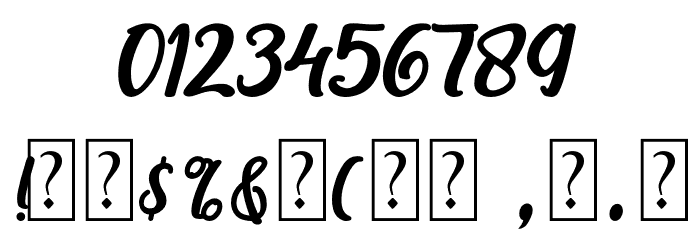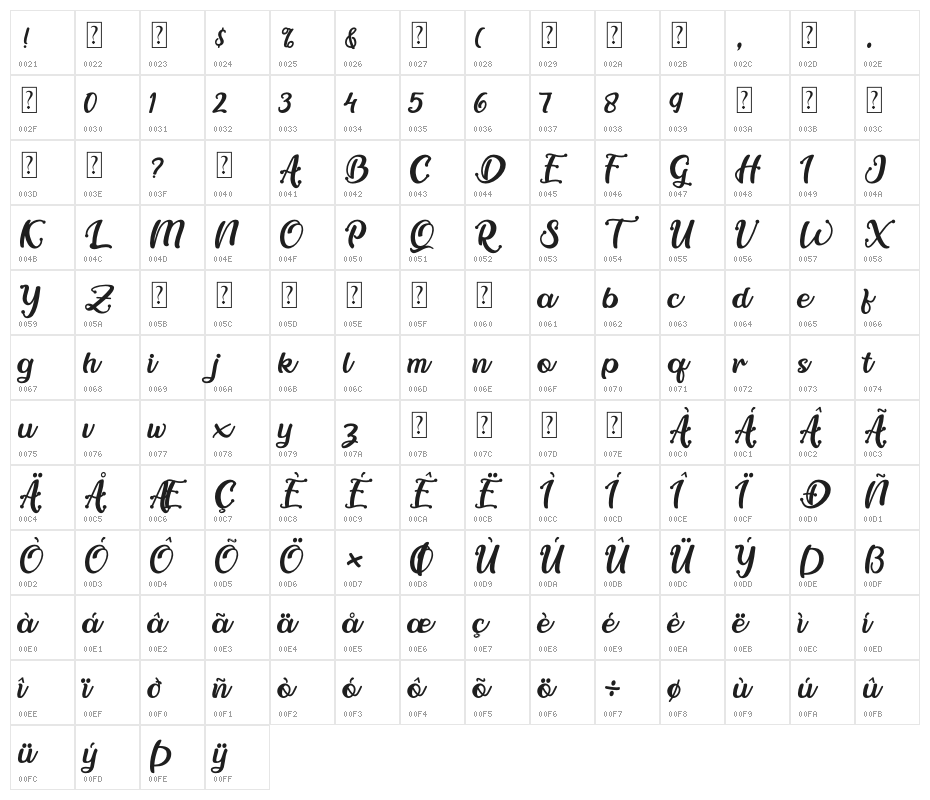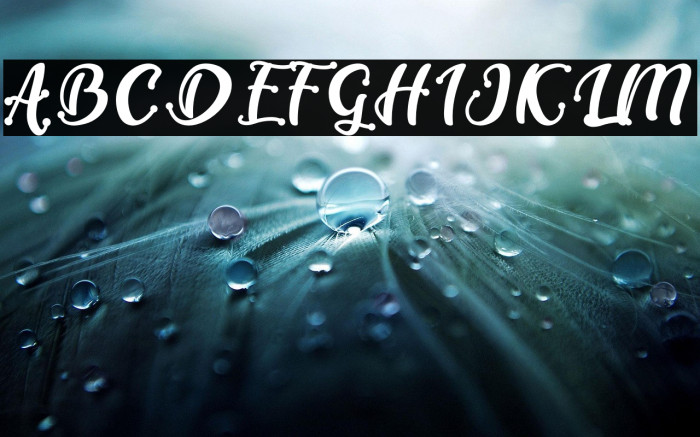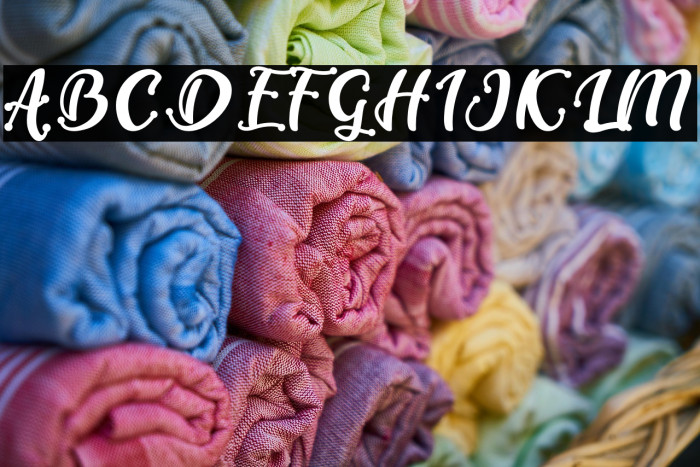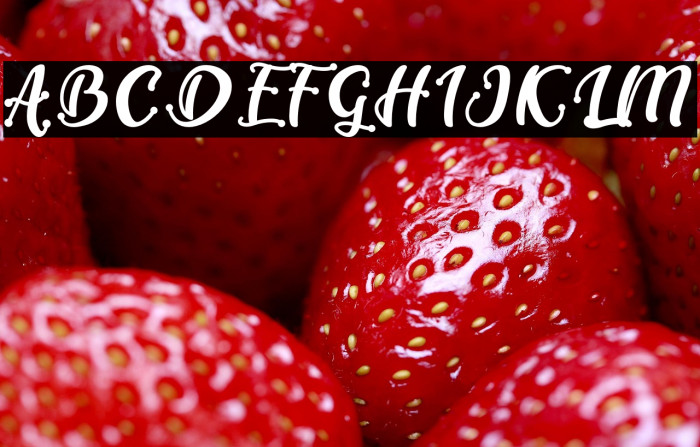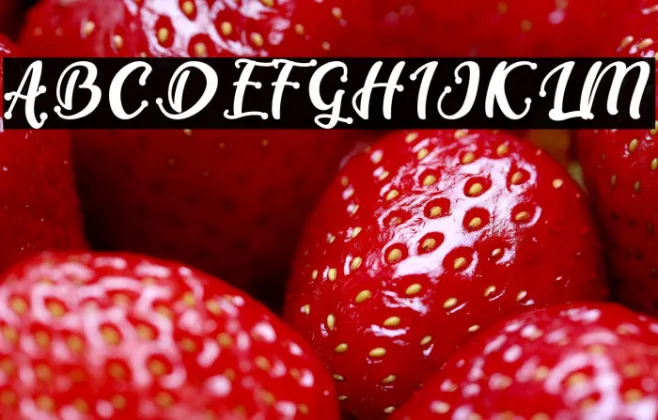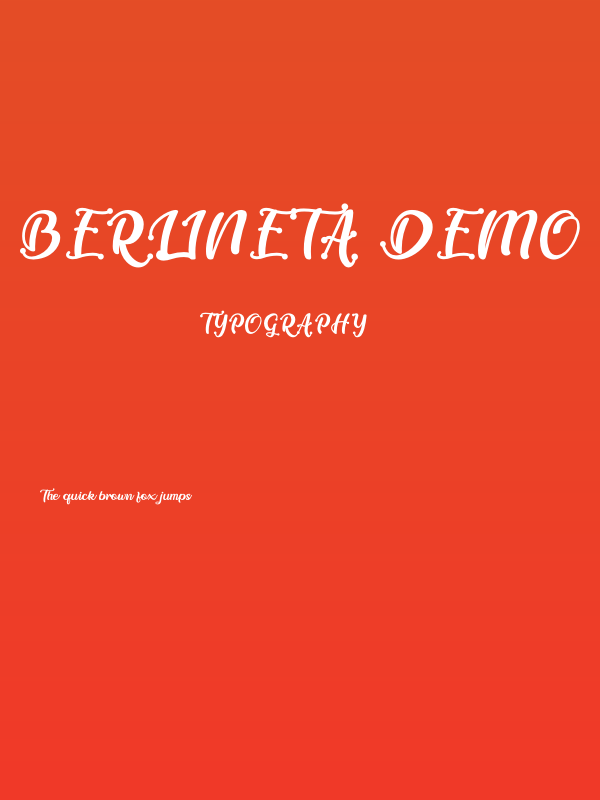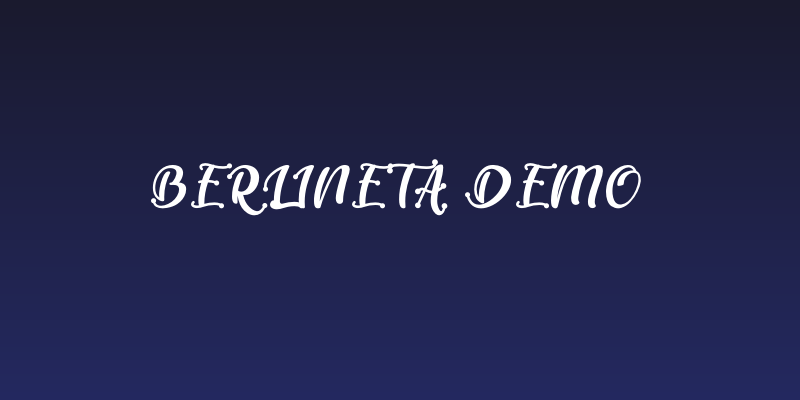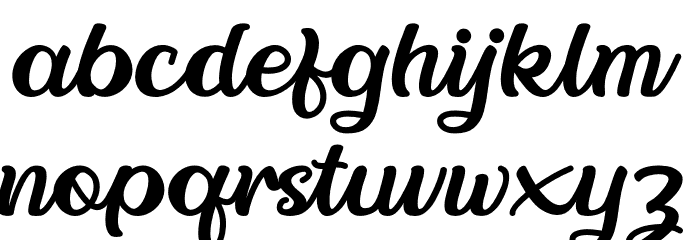
Berlineta DEMO Font
Berlineta DEMO Description
This font features a bold and flowing script style, characterized by its elegant and cursive letterforms. The uppercase letters exhibit a graceful, sweeping motion with pronounced curves, while the lowercase letters maintain a consistent fluidity, enhancing readability. The numerals are designed with a similar flair, ensuring a cohesive look throughout. Special characters are crafted with the same attention to detail, adding a touch of sophistication. The overall appearance is both stylish and dynamic, making it suitable for a variety of creative applications.